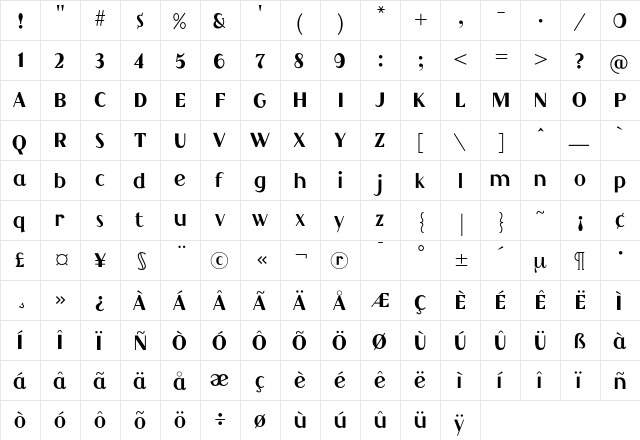
Camion Regular Font Preview
Camion Regular
Design Context for Camion Typeface
Camion is a composed and adaptable typeface that performs quietly and consistently across a wide range of design contexts.